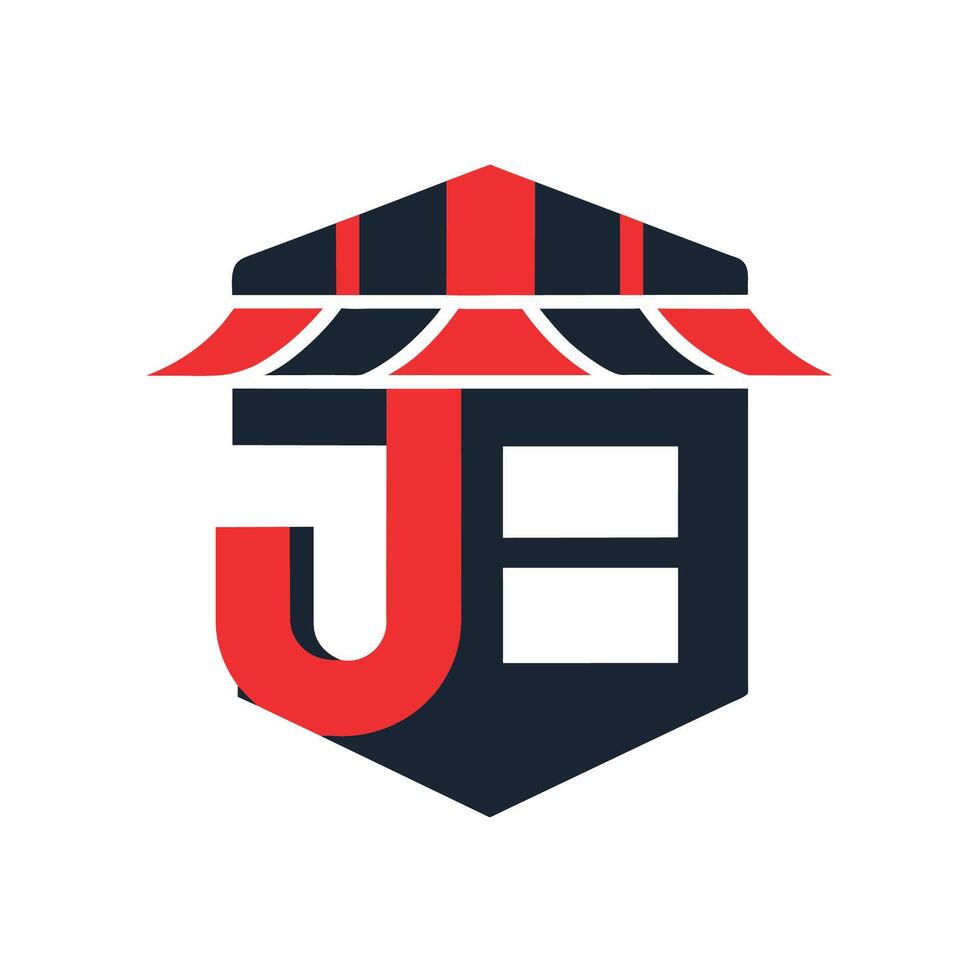
A logo design for a company featuring a modern font with the letter J in the center, Bold initials of the store name in a modern font, minimalist simple modern logo design vector